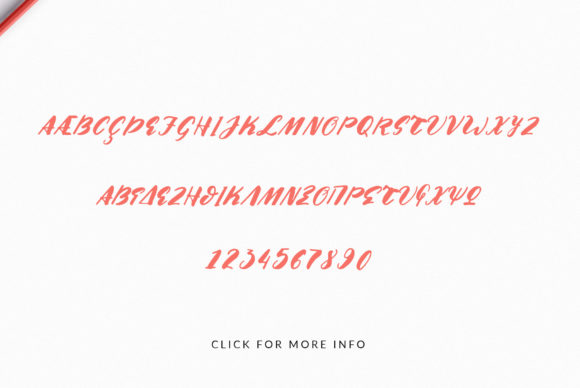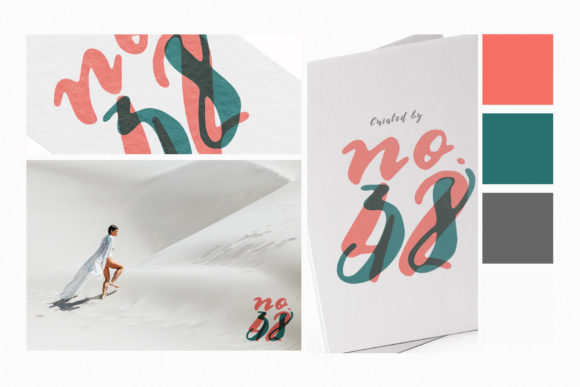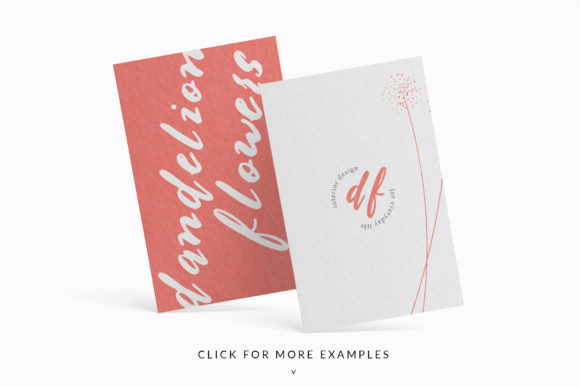
Introduction to Naquia Font
Have you ever found yourself stuck in a design rut, staring at a blank canvas, waiting for that perfect spark to ignite your creative project? For designers, this moment is all too familiar. But what if I told you that there’s a secret to unlocking your full design potential? Enter the Naquia Font, a light and easy script that’s about to revolutionize your design game.
This versatile font is more than just a pretty face – it’s a design resource that will elevate any project to new heights. With its casual charm and transparent background, Naquia Font is the perfect addition to your design arsenal. And the best part? It’s available for free download, making it an accessible high-quality resource for designers of all levels.
Key Features of Naquia Font
- High-quality design resource with a unique and creative style, perfect for any project.
- Features a transparent background, making it easy to use in any design application.
- Designed with high resolution (300 DPI) for use in print and digital projects.
- Supports multiple languages, making it a versatile design resource for global projects.
- Perfect for use in creative projects, such as logos, branding, and graphic design.
Honest Review: Naquia Font
As a designer, I’m always on the lookout for high-quality design resources to elevate my creative projects. Recently, I stumbled upon the Naquia Font, and I must say it’s been a game-changer for me.
- ✨ The font’s unique, elegant design makes it perfect for luxury brand identities and high-end creative projects.
- ✨ The transparent background option is a huge plus, allowing me to easily layer the font over various backgrounds and achieve a seamless look.
While the Naquia Font excels in many areas, there are a few limitations I’d like to mention:
- ⚠️ The font may not be suitable for projects requiring a more playful or casual tone.
- ⚠️ Some users may find the font’s elegance and sophistication a bit too much for their taste.
Overall, I’m thoroughly impressed with the Naquia Font. Its high quality, elegant design, and free download option make it an excellent addition to any designer’s toolkit. Whether you’re working on a high-end creative project or simply looking for a sophisticated font, the Naquia Font is definitely worth checking out.
How to Use Naquia Font
For the most effective use of Naquia Font, use it for headings and titles in your design. This will create a clear visual hierarchy and draw attention to important information. Common use cases include branding, advertising, and editorial design.